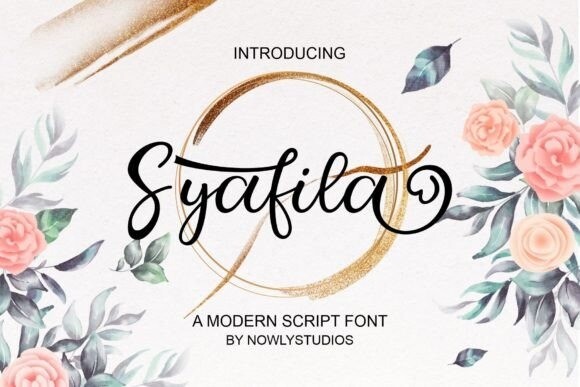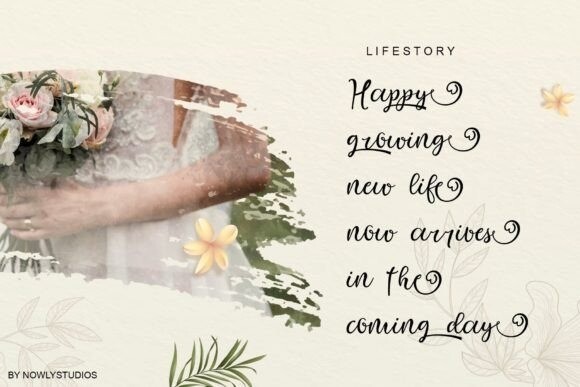
Syafila Font
Syafila Font is a flowing script font described by an elegant touch, perfect for your favorite projects. Fall in love with its incredibly distinct and timeless style and use it to create spectacular designs!